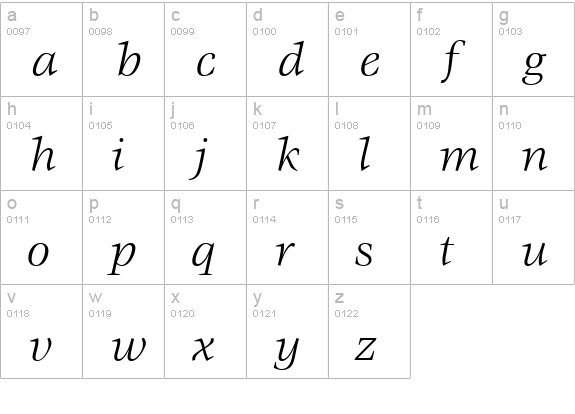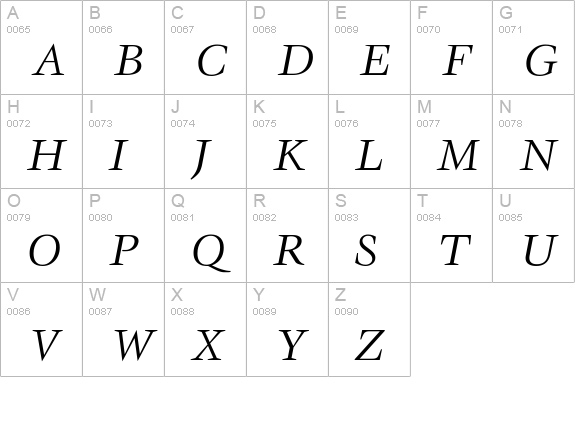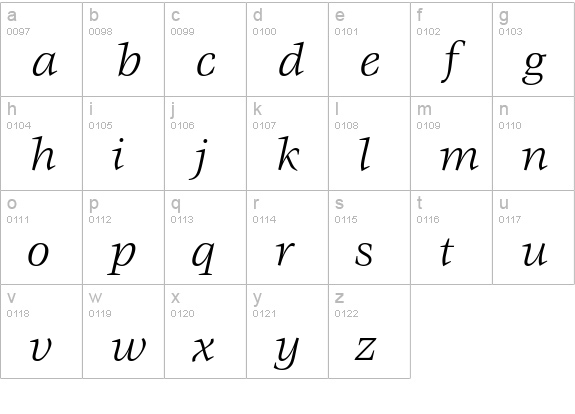
Veljovic Italic is a distinctive, italic variant in the Veljovic typeface family \xE2\x80\x94 well suited to design and typography projects.
Veljovic Italic is an exquisite and elegant font that effortlessly combines timeless beauty with contemporary sophistication. With its graceful curves and delicate strokes, this font exudes a sense of refined elegance that is perfect for any project requiring a touch of class and distinction. Designed by renowned type designer Jovica Veljovic, Veljovic Italic showcases his exceptional craftsmanship and attention to detail. The carefully crafted letterforms and subtle variations in stroke width create a harmonious balance that is both pleasing to the eye and easy to read. The unique italic style adds a touch of flair and individuality, making it a standout choice for logos, headlines, invitations, and more. One of the most remarkable features of Veljovic Italic is that it is available for free. This means that you can enhance your design projects with this exceptional font without any cost or restrictions. It is freely available to download at FontsMarket.com, a trusted source for high-quality fonts. Whether you are a professional designer or a hobbyist, Veljovic Italic is a versatile font that offers endless possibilities. Its timeless appeal and versatility make it suitable for a wide range of applications, from branding and packaging to editorial design and wedding invitations. With its elegant and sophisticated aesthetic, Veljovic Italic is sure to elevate any design and leave a lasting impression. Download Veljovic Italic for free at FontsMarket.com and unlock the potential to create stunning and memorable designs that truly stand out from the crowd. Experience the beauty and versatility of this exceptional font and let your creativity soar.